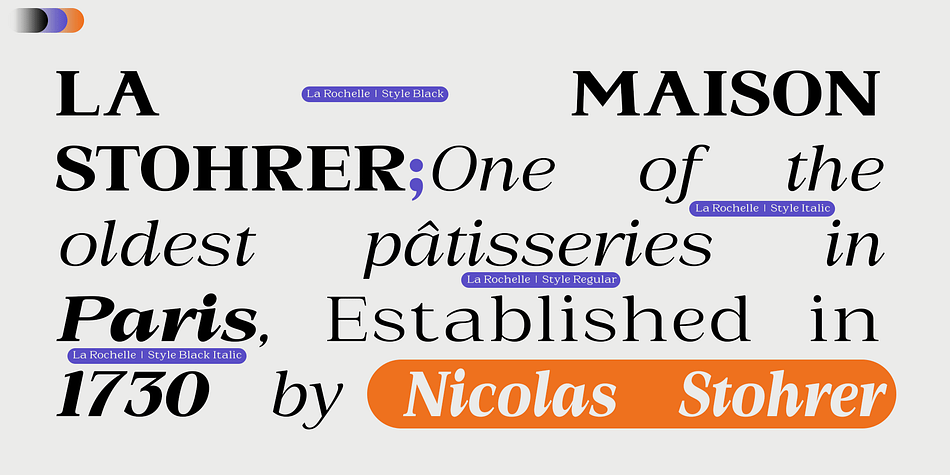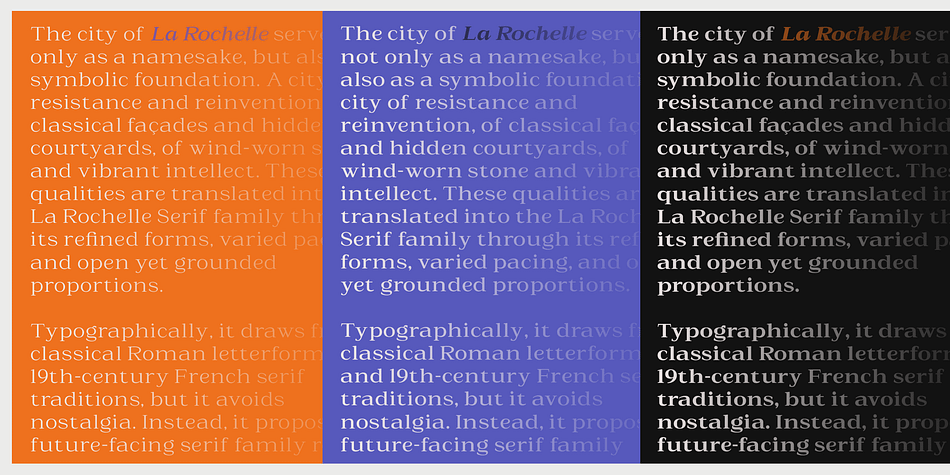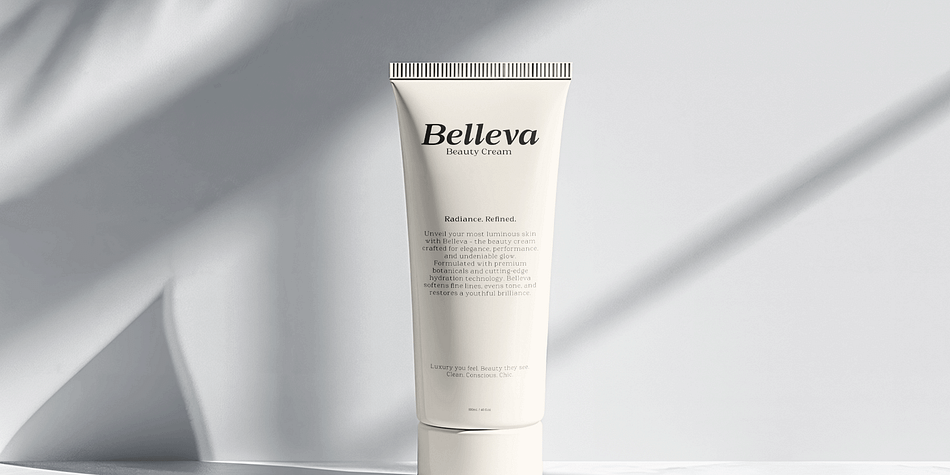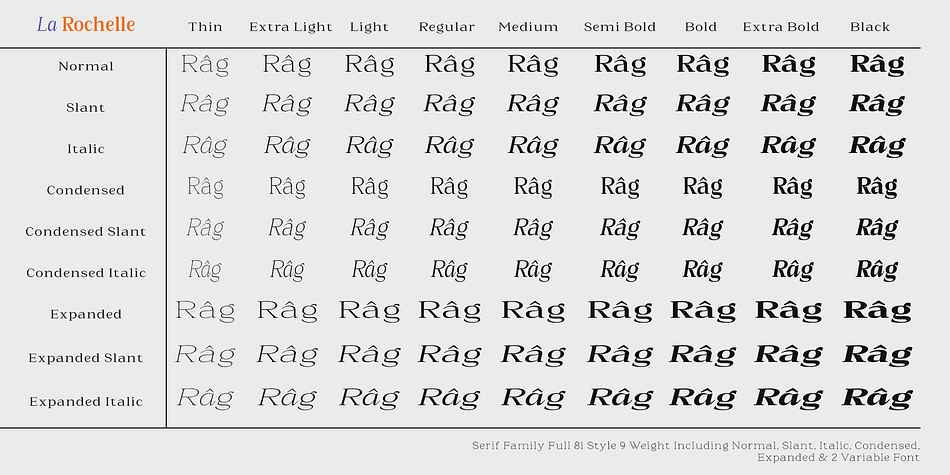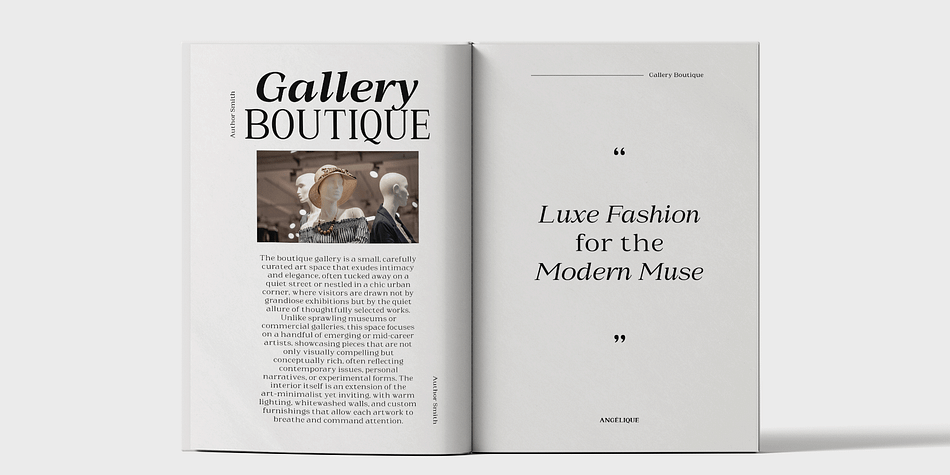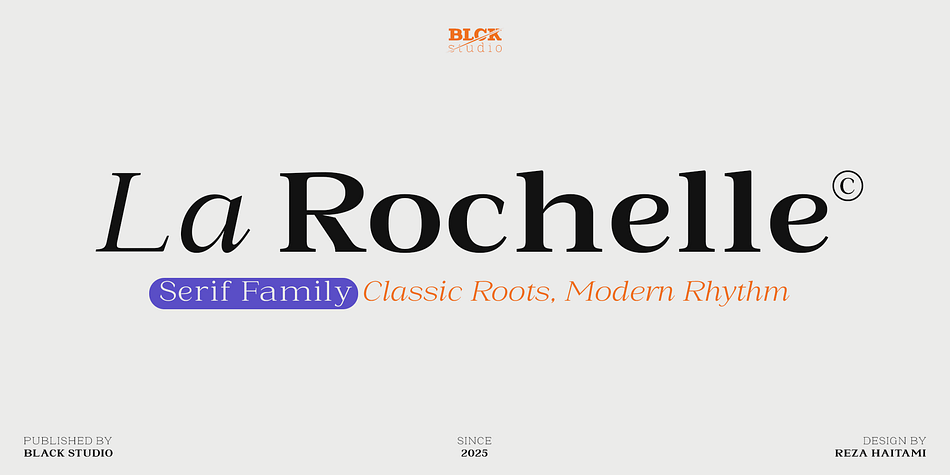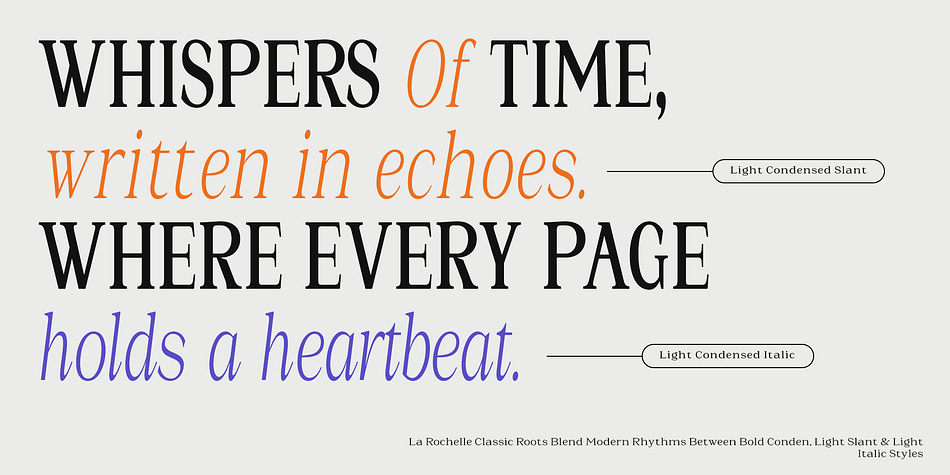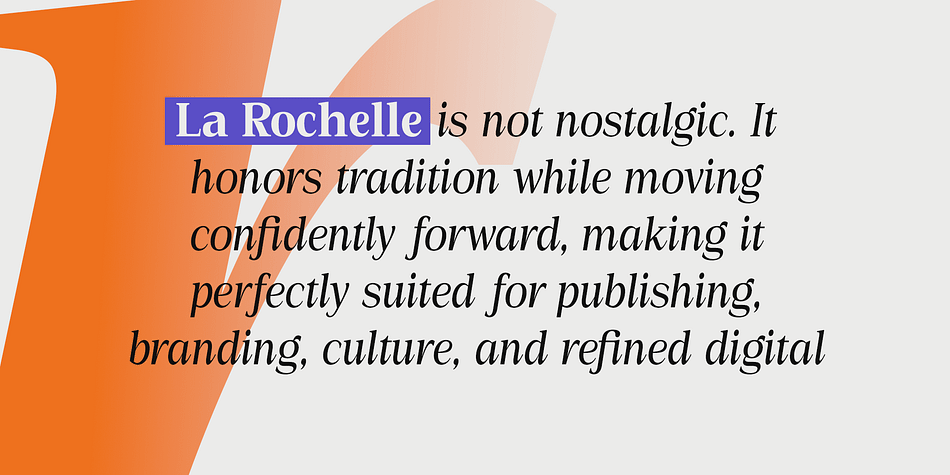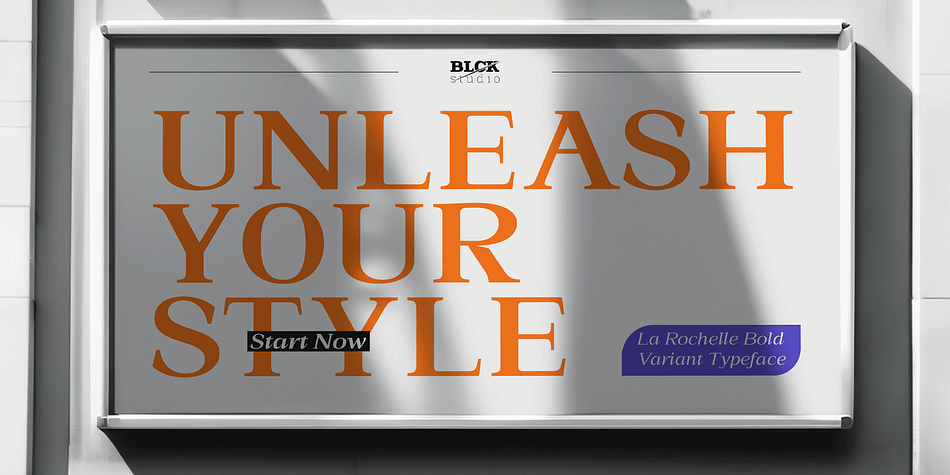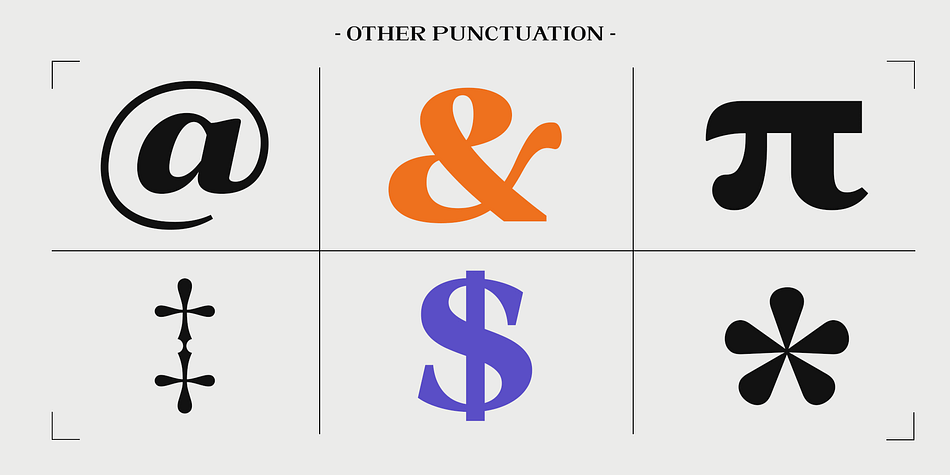
La Rochelle
La Rochelle is a serif font family. This typeface has eighty-three styles and was published by Black Studio.
La Rochelle is a refined variable serif typeface that blends classical elegance with modern adaptability. Designed with four dynamic axes—Weight, Width, Slant, and Italic—it offers a wide expressive range, from delicate light styles to bold, condensed, and dramatically slanted forms. This flexibility makes La Rochelle a powerful tool for designers working across editorial, branding, and digital platforms, allowing for seamless typographic modulation without sacrificing visual harmony.
Drawing inspiration from traditional French serif forms, La Rochelle balances structure and grace with subtle detailing and high contrast. The Italic axis adds a second layer of expression, distinct from the Slant axis, enabling nuanced typographic hierarchy and voice. Whether used in fluid storytelling or precise typographic systems, La Rochelle adapts with sophistication and clarity, making it a versatile choice for contemporary design needs.
Typeface Features:
- 390 Glyphs
- 4 Subfamilies: Weight, Slant, Width, Italic
- 9 Weight: Thin, Extra Light, Light, Regular, Medium, Semi Bold, Bold, Extra Bold, Black
- Complete Collection: 81 Styles + 2 Variable Normal & Italic
- Kerning